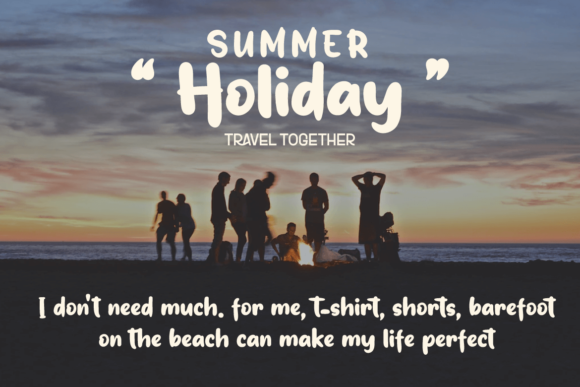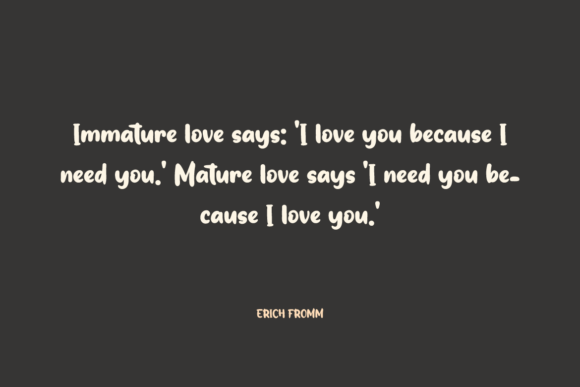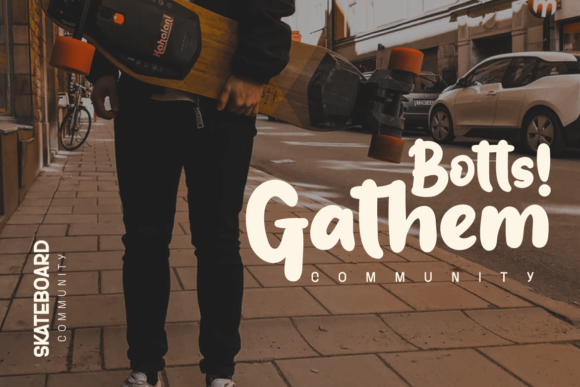
Introduction to Outedis Font
Outedis is a trendy, thick lettered, and charming handwritten font.
No matter the topic, this font will be an incredibly asset to your fonts’ library, as it has the potential to elevate any creation .
Outedis Font offers exceptional quality and versatility, making it a valuable addition to your design toolkit. Whether you’re creating for personal projects or commercial use, Outedis Font delivers professional results.